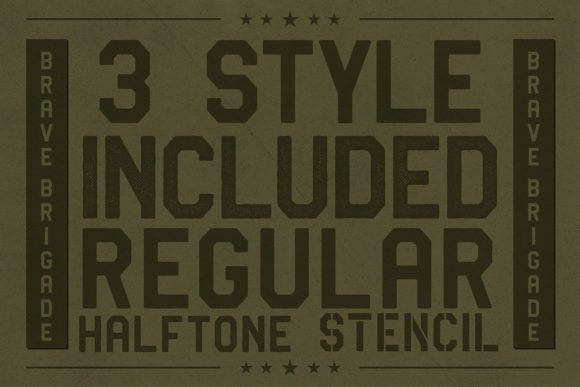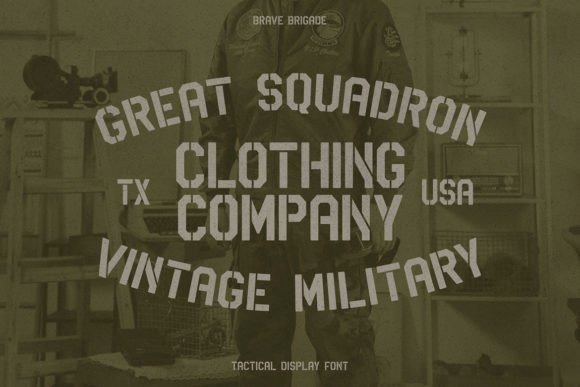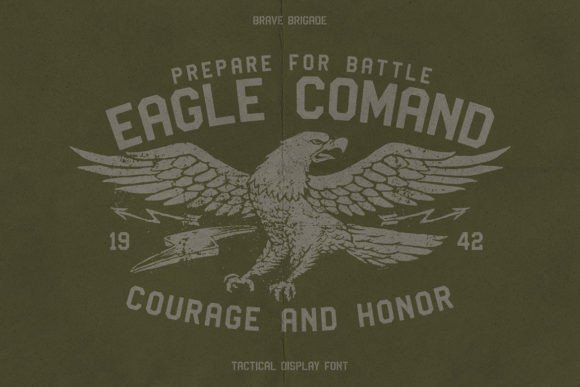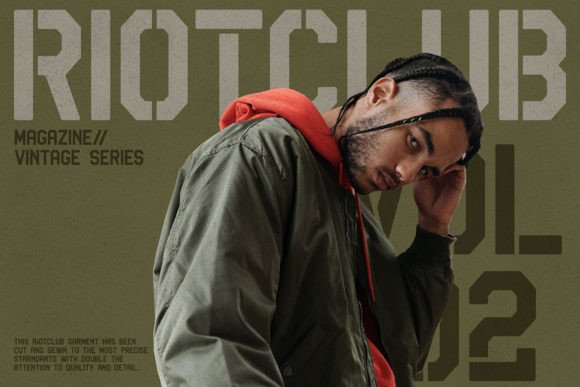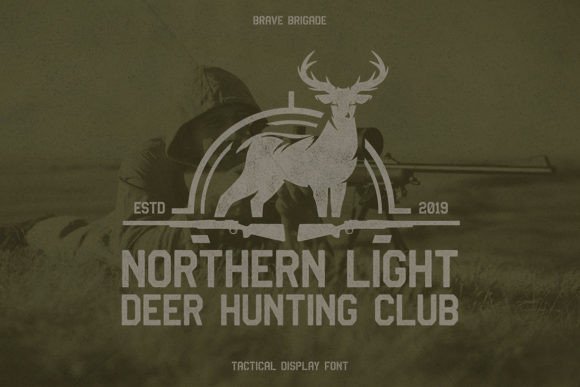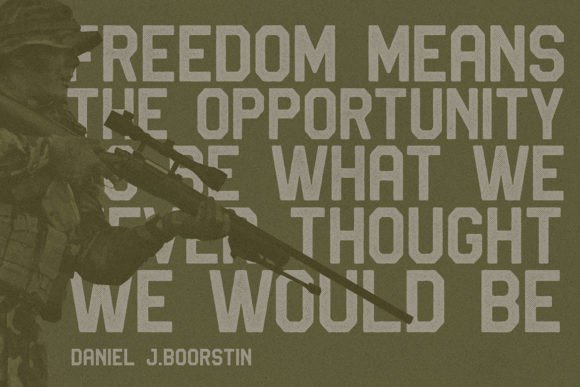
Brave Brigade Font: Elevate Your Designs with a Military-Inspired Typeface
In the world of design, typography plays a crucial role in conveying messages, evoking emotions, and creating lasting impressions. For designers and crafters seeking a font that exudes strength, uniqueness, and a touch of military flair, the Brave Brigade Font is an excellent choice. Inspired by military uniforms and badges, this display font is sure to brighten up your designs and leave a lasting impact.
The Inspiration Behind Brave Brigade Font
The Brave Brigade font draws inspiration from the bold and rugged world of military uniforms and badges. Its creators aimed to capture the essence of courage, strength, and unity that these symbols represent. The result is a font that embodies a sense of confidence and resilience, making it perfect for designers looking to add a touch of boldness to their work.
Key Features of Brave Brigade Font
- Strong and Unique: The Brave Brigade font boasts a distinctive style that sets it apart from more traditional typefaces. Its strong and rugged appearance makes it ideal for headlines, titles, and any design element where you want to make a statement.
- Military-Inspired: The font’s design is deeply rooted in military aesthetics, featuring clean lines, bold shapes, and a sense of discipline that is sure to appeal to fans of military-inspired design.
- Versatile: While Brave Brigade is classified as a display font, its versatility allows it to be used across various design projects, from posters and flyers to digital graphics and craft projects.
- Easy to Read: Despite its bold nature, the font maintains a level of readability that is crucial for effective communication. This makes it suitable for designs where you want to grab attention without sacrificing clarity.
Using Brave Brigade Font in Your Designs
Adding the Brave Brigade font to your design projects is a straightforward process that can elevate your work in several ways:
- Headlines and Titles: Use Brave Brigade to create eye-catching headlines and titles that demand attention. Its military-inspired aesthetic is particularly effective for designs related to defense, adventure, and motivational themes.
- Posters and Flyers: The font’s strong presence makes it an excellent choice for posters and flyers aimed at promoting events, campaigns, or products with a bold and daring image.
- Digital Graphics: Incorporate Brave Brigade into your digital graphics, such as social media posts and website headers, to give your online presence a bold and confident look.
- Craft Projects: For crafters, this font can add a unique touch to DIY projects, including handmade cards, scrapbooking, and other paper crafts.
Tips for Getting the Most Out of Brave Brigade Font
To maximize the impact of the Brave Brigade font in your designs, consider the following tips:
- Pair with Complementary Fonts: While Brave Brigade is strong on its own, pairing it with simpler fonts can create a balanced and visually appealing design.
- Experiment with Colors: The font’s bold design works well with a variety of colors. Experiment with different color schemes to find the one that best suits your project’s theme.
- Adjust Size and Weight: Don’t be afraid to play around with the size and weight of the font to achieve the desired effect. Larger sizes can be used for headlines, while smaller sizes can be used for supporting text.
| Author | invasistudio |
The Brave Brigade font is a powerful tool for designers and crafters looking to add a touch of military-inspired strength and uniqueness to their projects. With its bold and rugged aesthetic, this display font is sure to make your designs stand out. Whether you’re working on a poster, digital graphic, or craft project, Brave Brigade is a versatile and impactful choice that will help you achieve your creative goals.
So, why settle for ordinary when you can make a statement with the Brave Brigade font? Add it confidently to your projects and experience the difference it can make.